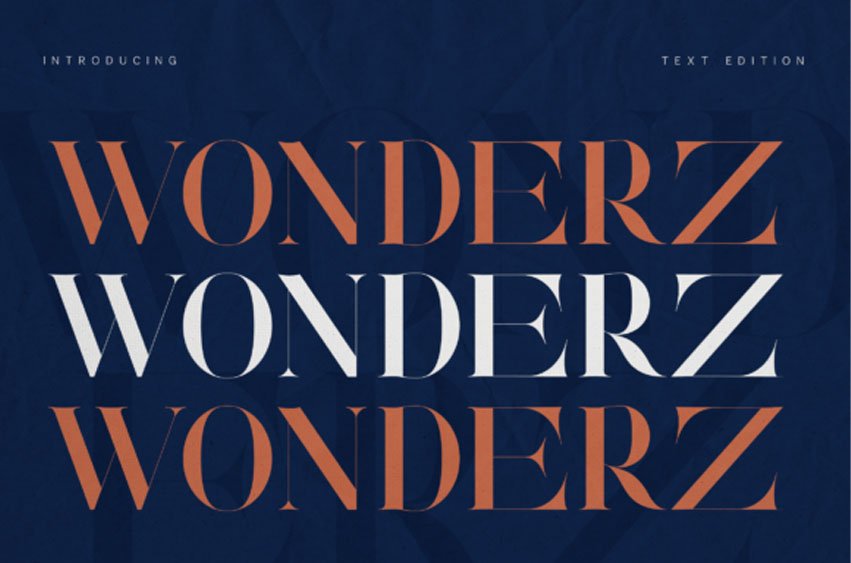
Wonderz Elite Font is a sophisticated high-contrast serif typeface designed for luxury branding, refined editorials, and premium visual identities.
With its sculpted curves, sharp serif details, and dramatic vertical contrast, Wonderz Elite delivers elegance with authority. The letterforms feel modern yet timeless — bold in headlines, graceful in text compositions.
Carefully engineered spacing and balanced proportions make this typeface ideal for both large-scale display use and refined branding systems. Whether you’re designing for fashion, beauty, publishing, or high-end packaging, Wonderz Elite brings clarity, confidence, and elevated style.
Perfect For:
• Luxury branding
• Fashion editorials
• Cosmetic packaging
• Boutique logos
• Magazine layouts
• Premium invitations
• High-end web design
• Elegant typography systems
Wonderz Elite is built for designers who want modern refinement with timeless presence.